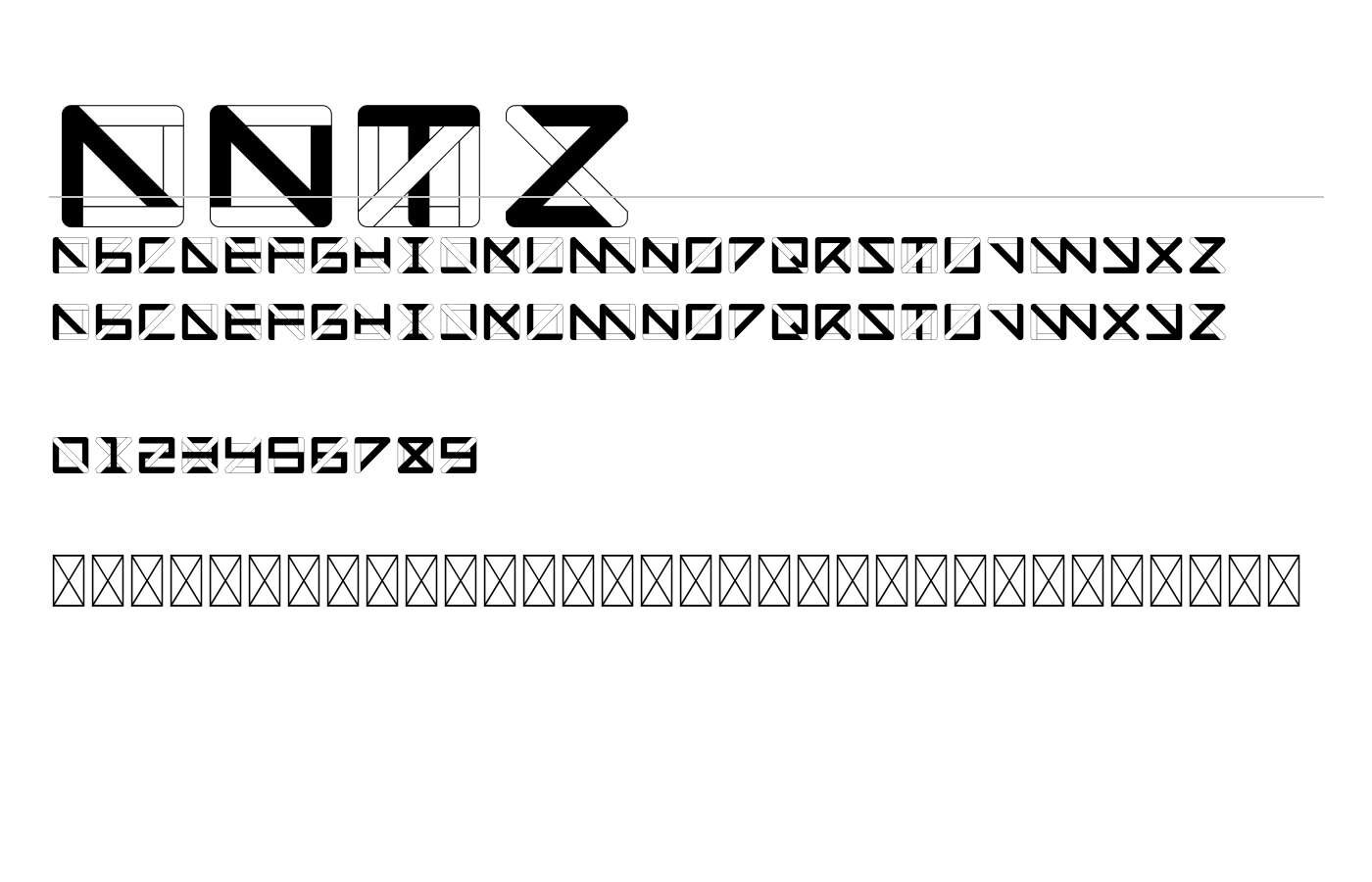
ANTZ is a bold, geometric sans serif font with a striking modern and futuristic feel. Its unique angular letterforms and high contrast between thick and thin diagonal strokes give it a tech-inspired, innovative vibe, making it ideal for logos, posters, and branding in creative or digital industries. This font stands out best in display settings where its distinctive shapes can capture attention and convey a cutting-edge style.
ANTZ Font
About ANTZ Font